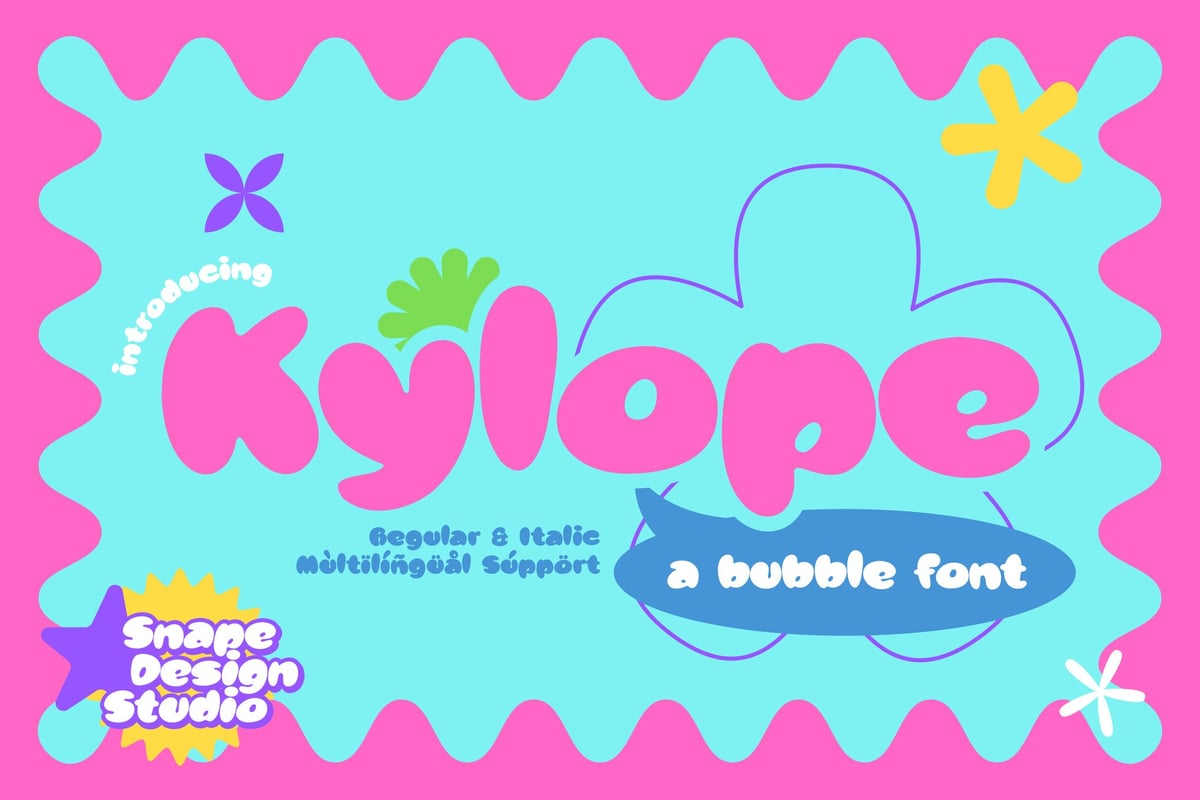
Kylope - Bubble Font
Transform your designs with Kylope's adorable bubble letterforms that bring instant joy and playful energy to any project. This bubble-themed typeface delivers a cheerful and inviting impression through its bold, rounded characters that make every word feel lively and expressive. The organic and unique shapes create a friendly personality that's perfect for connecting with audiences who love fun, dynamic design. Kylope excels in creative applications including: Branding projects that need a ligh...